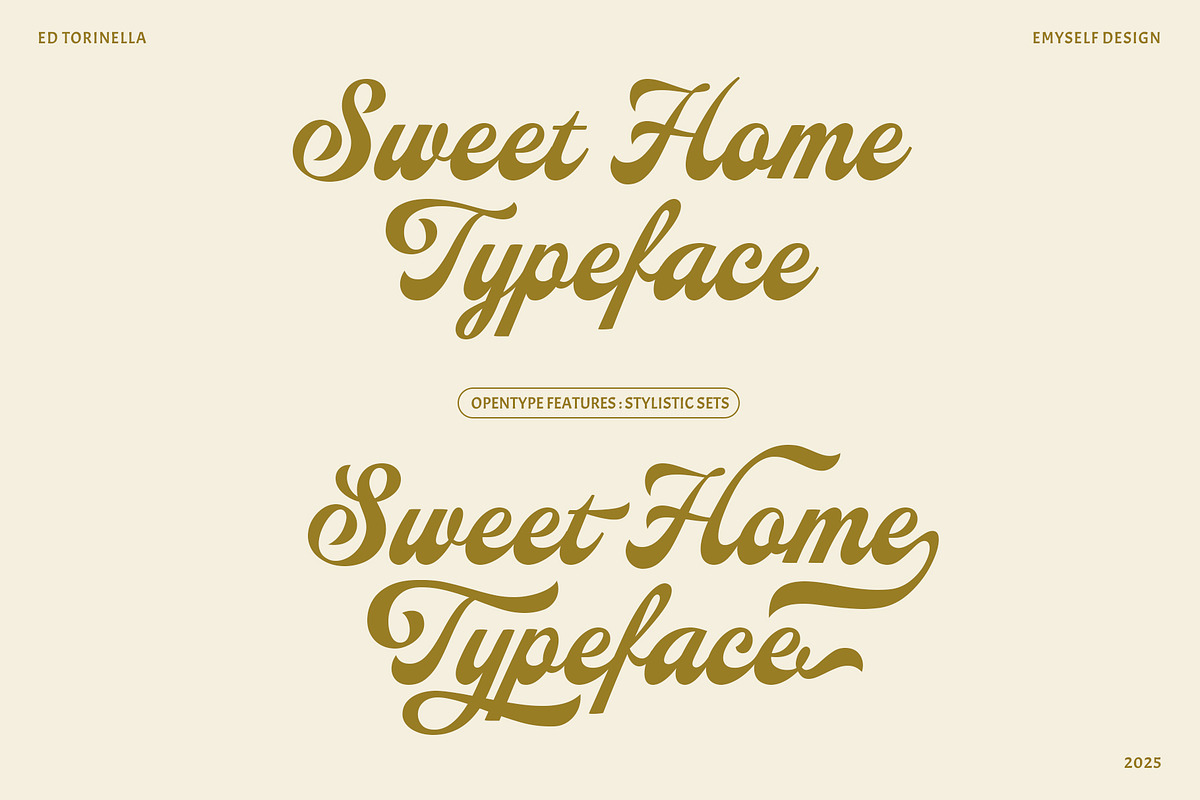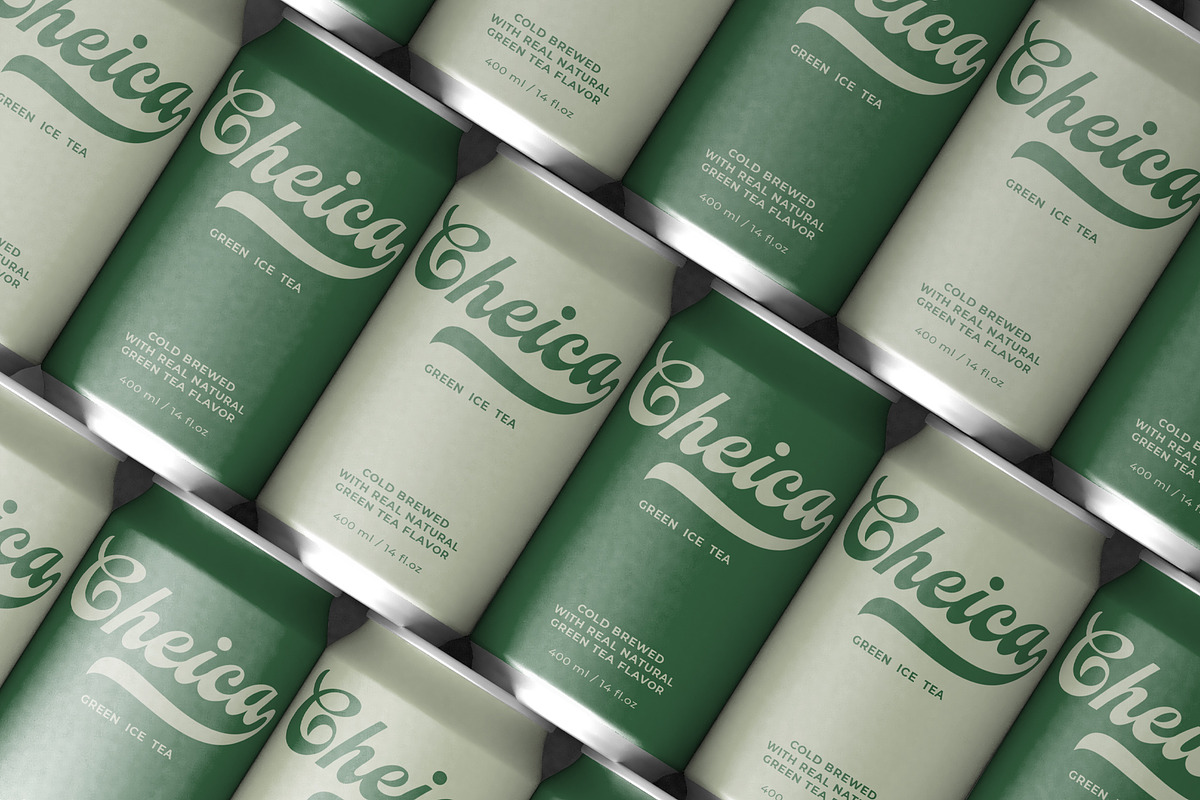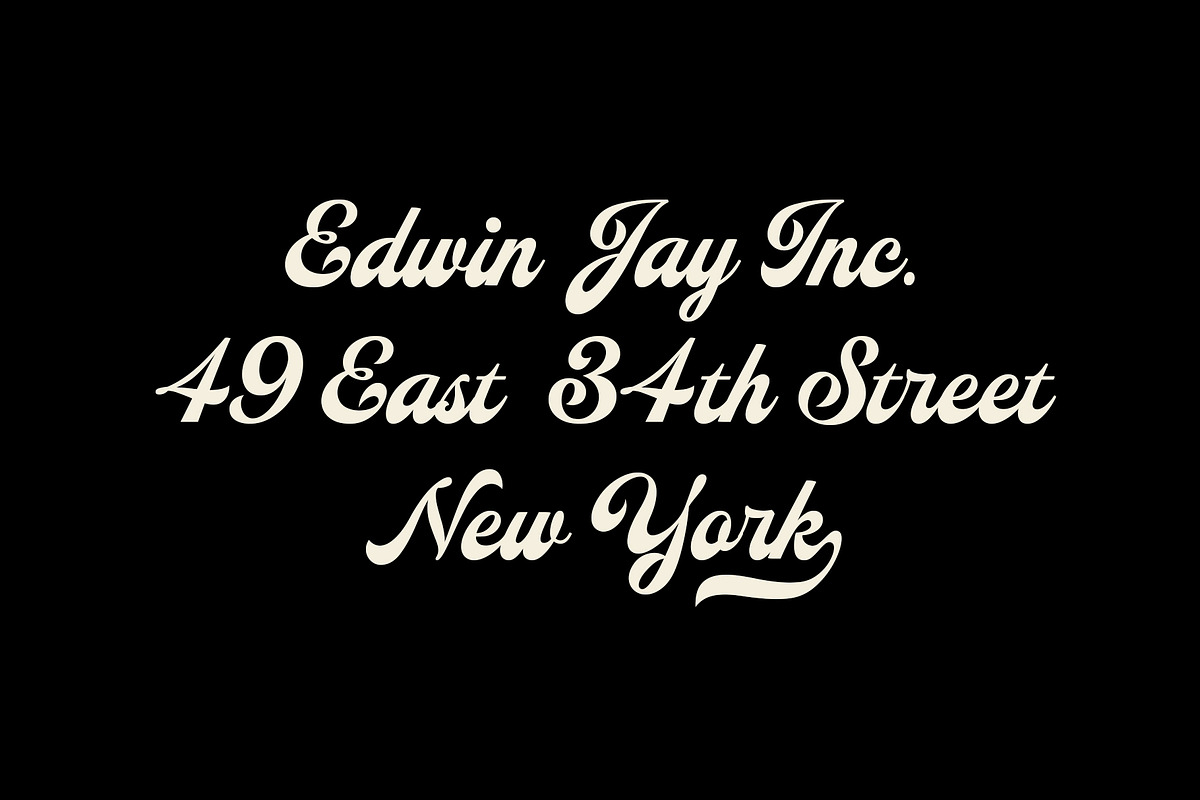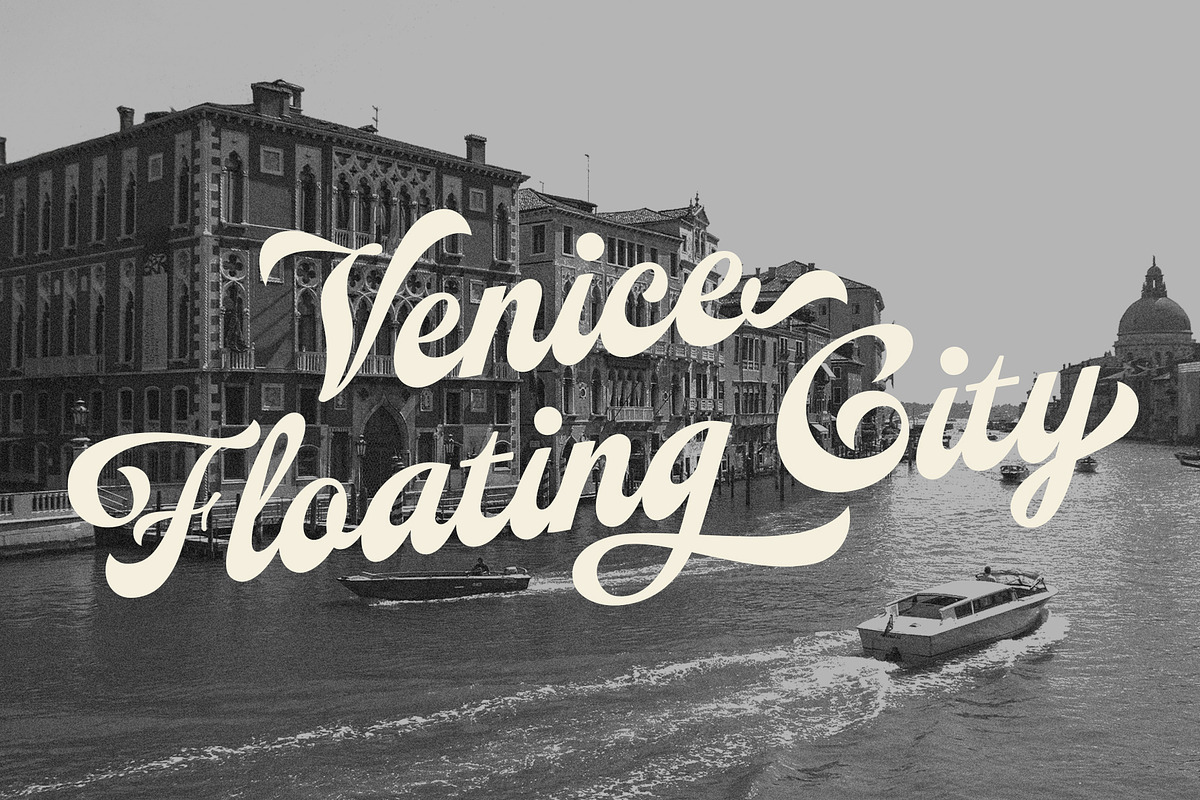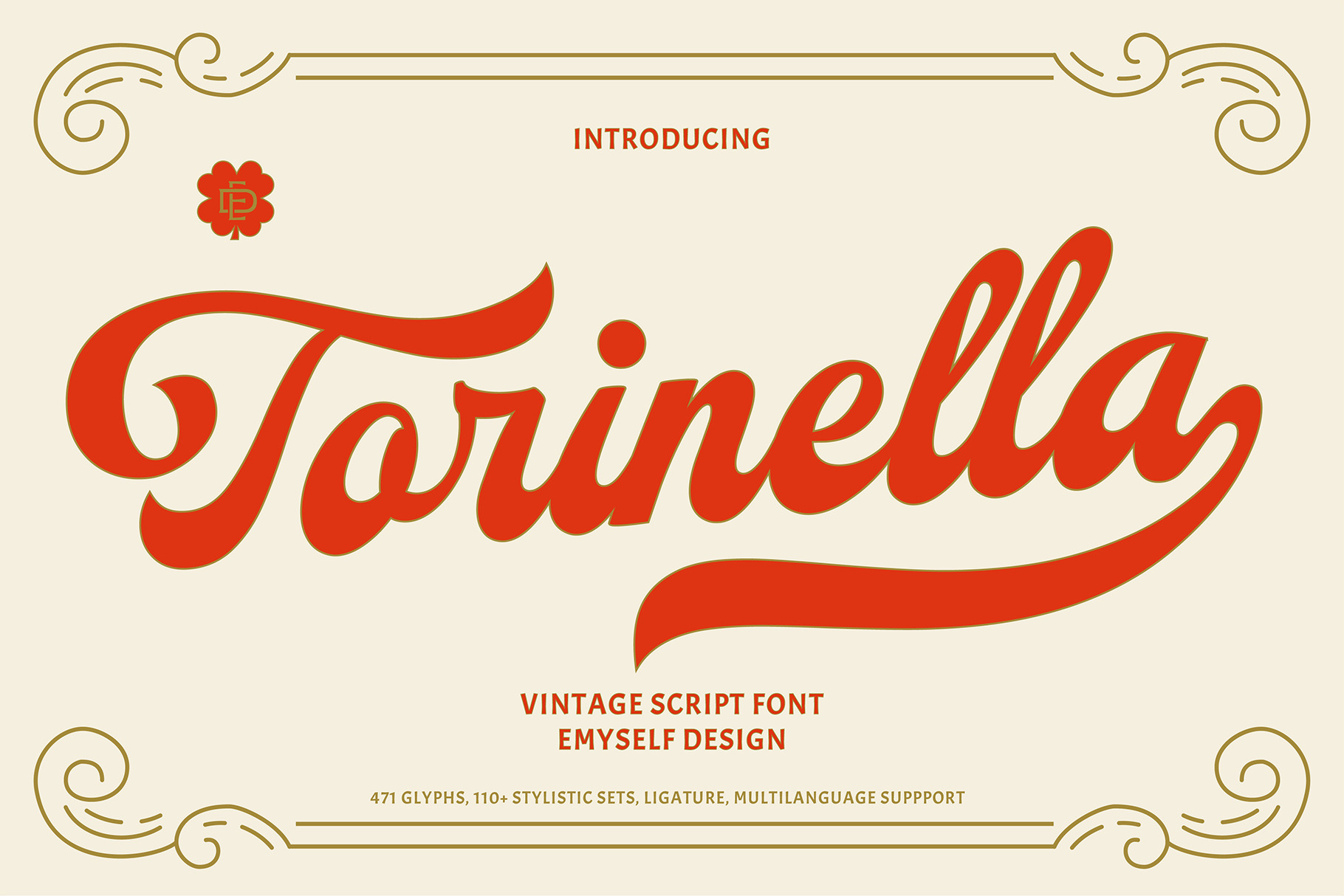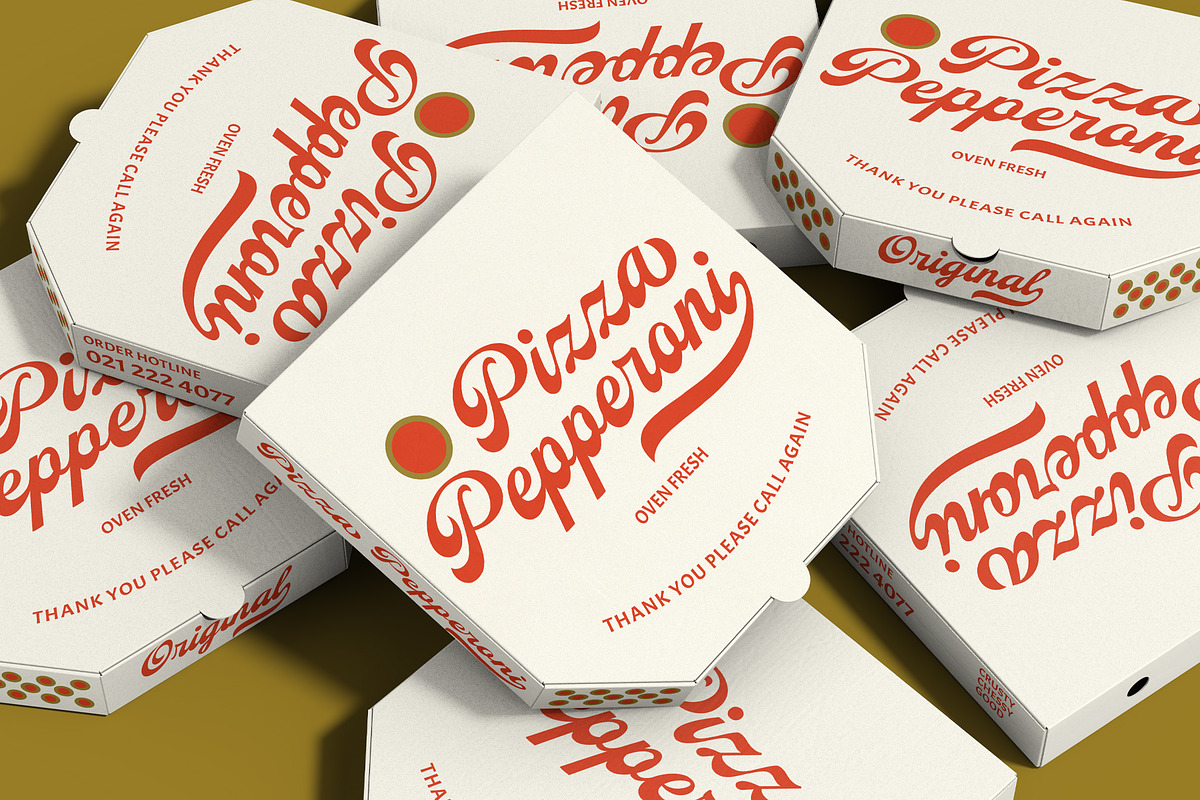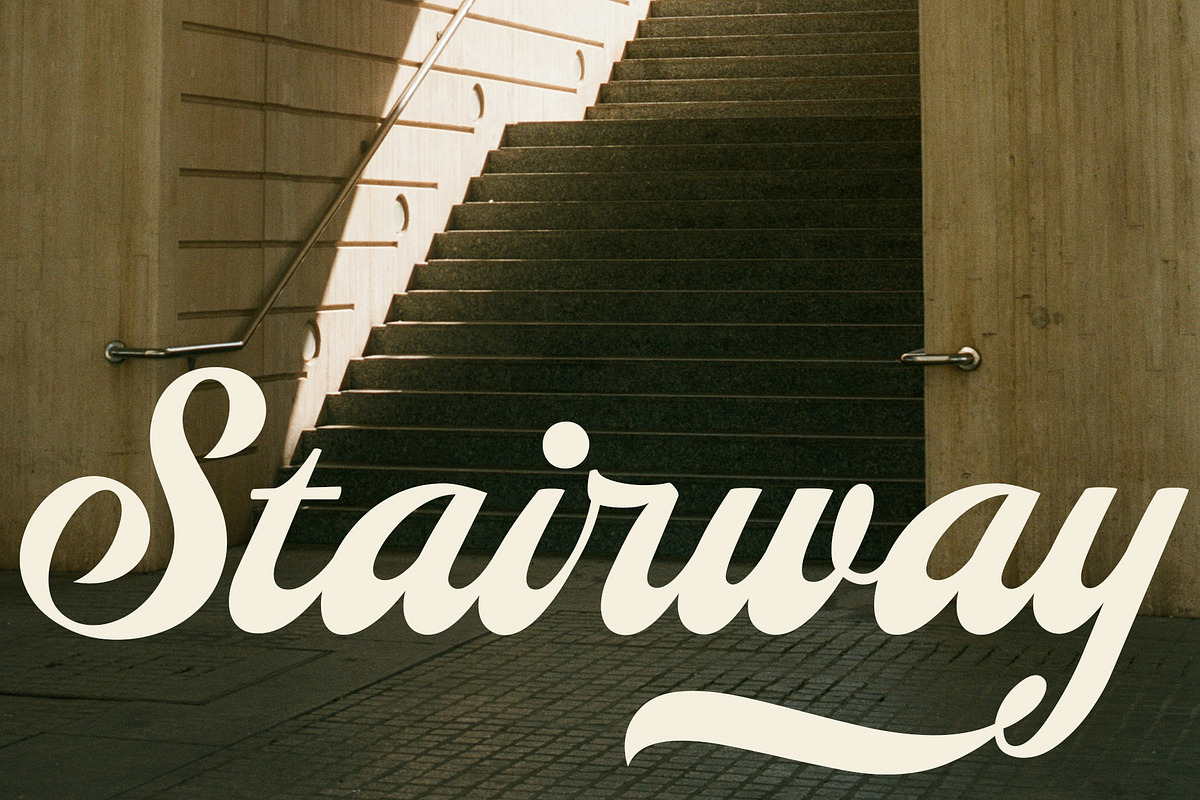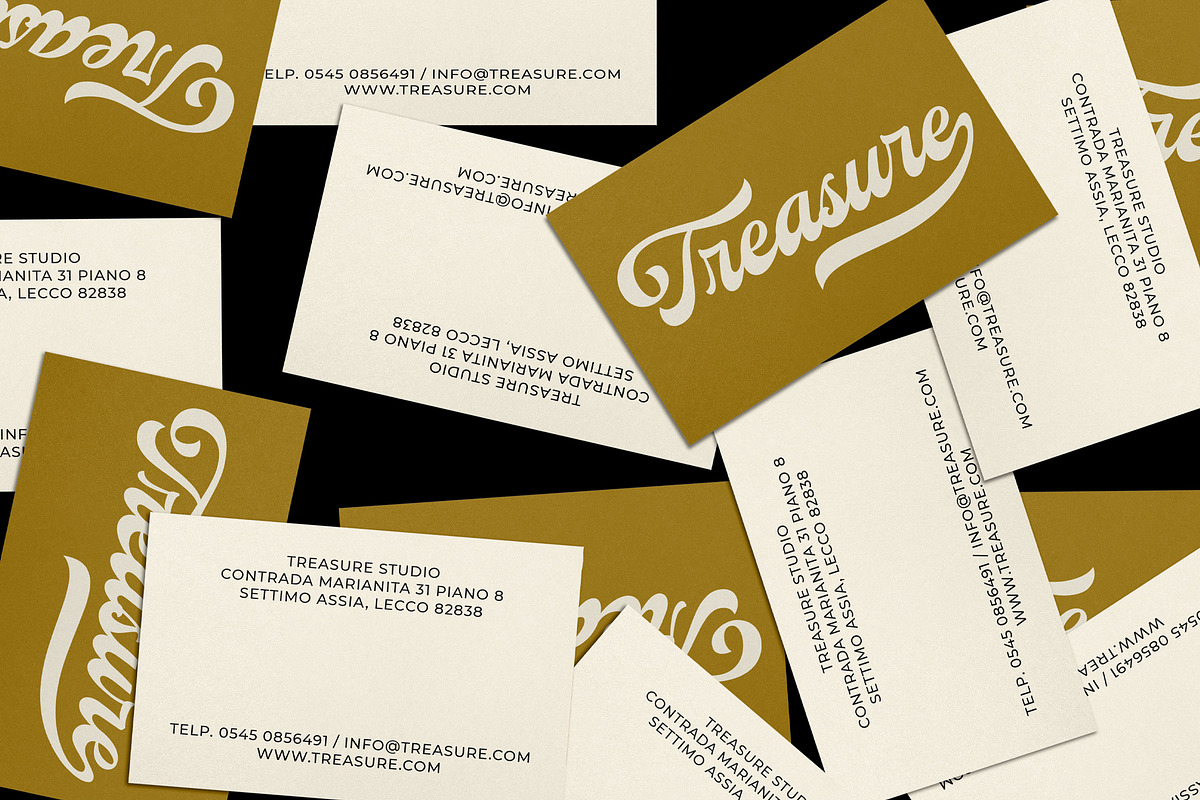
ED Torinella - Vintage Script Font
Introducing ED Torinella, a bold and charismatic vintage script font designed to make a statement. With thick, flowing strokes and elegant curves, this font captures the spirit of retro signage and handcrafted lettering. ED Torinella is the perfect blend of nostalgic charm and modern functionality.
Packed with over 471 glyphs, 110+ stylistic alternates, ligatures, and multilingual support, ED Torinella gives you full control to customize your typography with personality and flair.
Whether you're crafting logo designs, apparel prints, branding headlines, or editorial titles, ED Torinella brings a strong, stylish presence to your work.
- OpenType features: Stylistic Sets, Ligatures, Multilingual Support
- Ideal for: logos, apparel, posters, labels, and headlines
- Comes with 471 glyphs and rich character variation